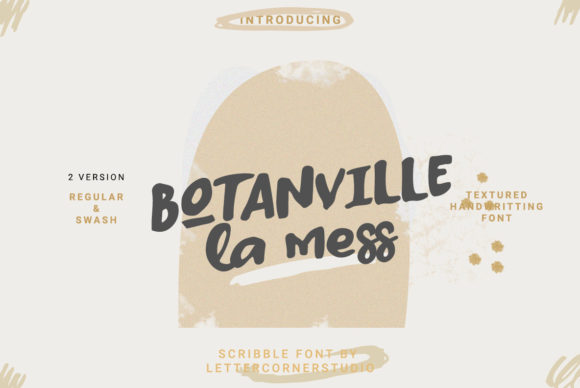
The Designer’s Delight: Botanville La Mess Font
I’ll never forget the time I was working on a branding project for a trendy boutique, and I just couldn’t find the right font to capture their playful, yet sophisticated vibe. The client wanted something that would appeal to a young audience, but still convey a sense of elegance. That’s when I stumbled upon Botanville La Mess, a chic paint-brushed display font that instantly became my go-to. In this article, I’ll share my love for this font, its features, and how to make the most of it in your designs.
• ✨ Unique, hand-painted feel that adds a touch of personality to any design
• ✅ Perfect for display fonts, titles, and headings
• ✅ Works well for branding projects, logos, t-shirt printing, and creative products
• ✅ Friendly and approachable vibe that’s sure to resonate with young audiences
While Botanville La Mess is an amazing font, there are a few things to keep in mind:
• ⚠️ May not be suitable for body text or long paragraphs due to its display font nature
• 🤔 Limited legibility at very small sizes, so use it wisely
3. Experiment with OpenType features, such as glyphs and stylistic alternates, to add visual interest
Botanville La Mess was inspired by the charming streets of Botanville, a quaint town known for its vibrant art scene and eclectic shops. The font’s creator, a talented designer with a passion for hand-painted typography, wanted to capture the essence of this charming town in a font that would bring a touch of personality to any design.
Font Name Botanville La Mess Font
Author Lettercorner Studio
A: Botanville La Mess is perfect for display fonts, titles, and headings, making it ideal for branding projects, logos, t-shirt printing, and creative products.